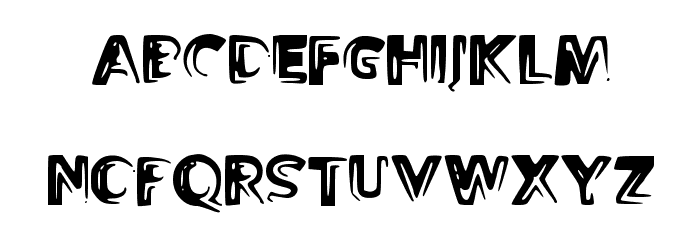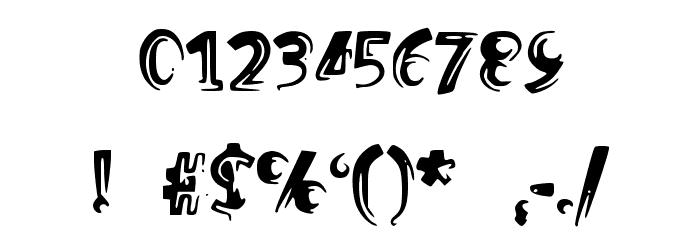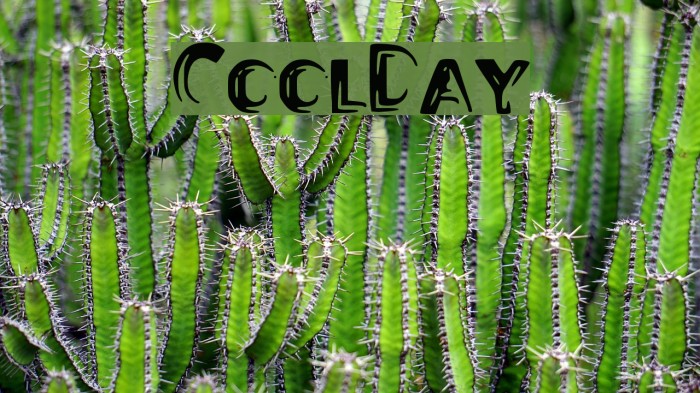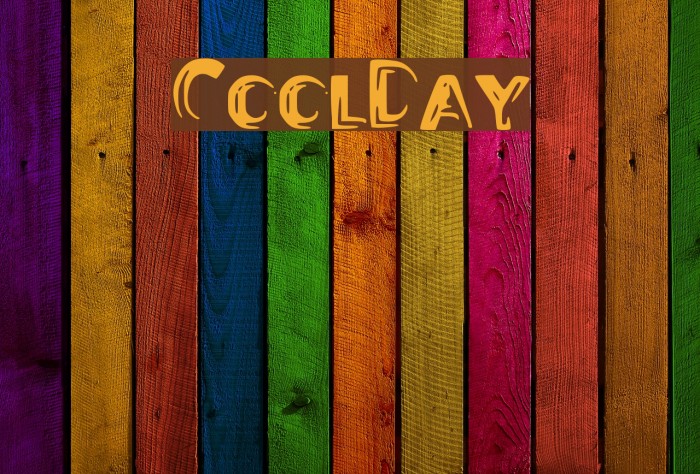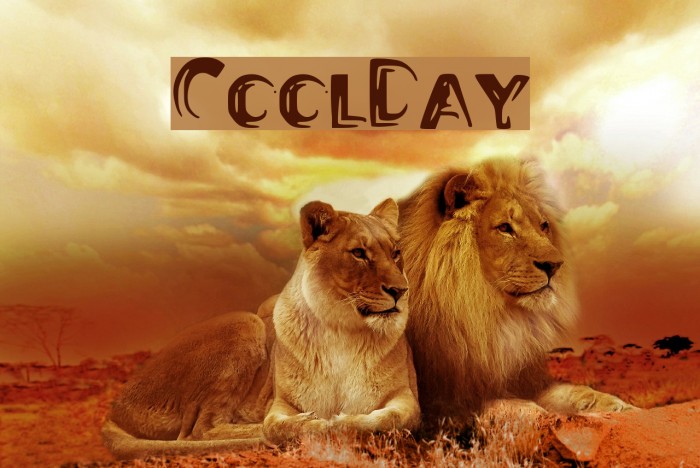
CoolDay Font
This font features a bold and dynamic style with a unique, distressed appearance. The letters are characterized by sharp edges and irregular, jagged forms that give a sense of movement and energy. The uppercase and lowercase letters maintain a consistent style, with some characters appearing slightly tilted or skewed, enhancing the font's edgy and modern look. Numbers and special characters follow the same design principles, ensuring uniformity across all glyphs. The font's high contrast between thick and thin strokes adds to its dramatic and eye-catching appeal.
A bold, distressed font with sharp, jagged edges and high contrast.
- Proposed Projects: Ideal for music album covers, edgy branding, streetwear designs, and event posters.
- Overall Style: Modern, Edgy